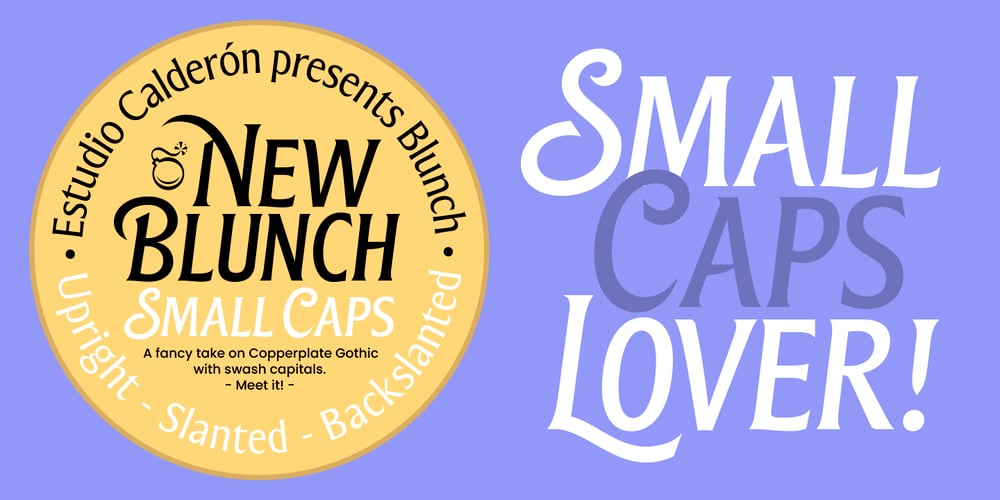
Blunch Font Family was designed by Felipe Calderón and published by Estudio Calderon. Blunch contains 3 styles and family package options. Blunch is a new glyphic typeface that has flared slightly strokes. The design is based on many typographic references as Basilea, Stettler and Pascal. It includes three styles: Upright, slanted and backslanted.Blunch is equipped with an extended character set to support Central and Eastern European as well as Western European languages.I recommended use Blunch in the following design concepts: Brewing company Can beer desing Sports Branding Packaging design